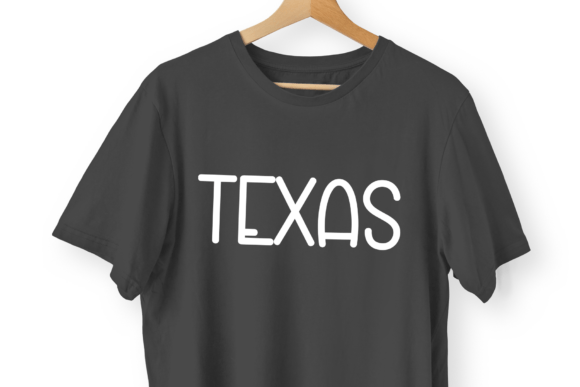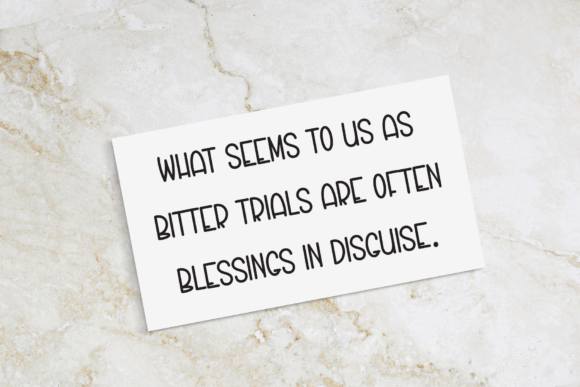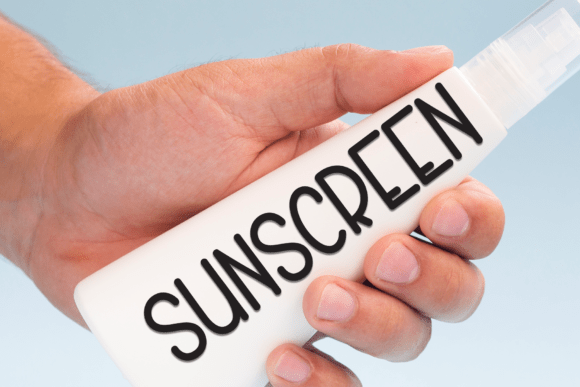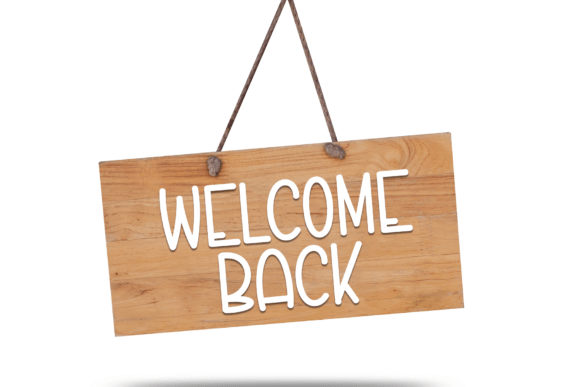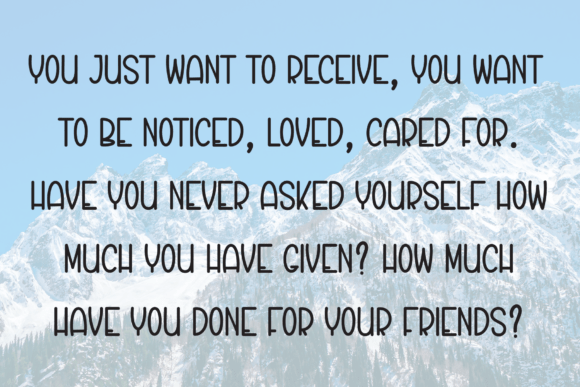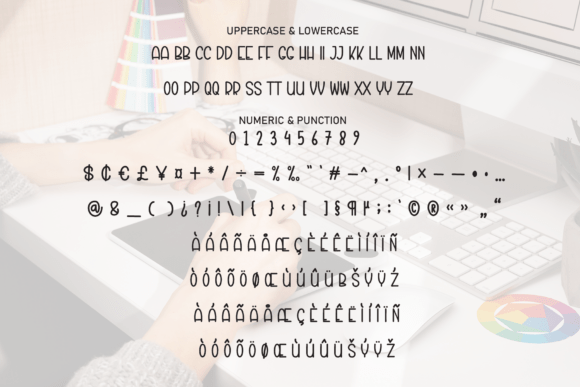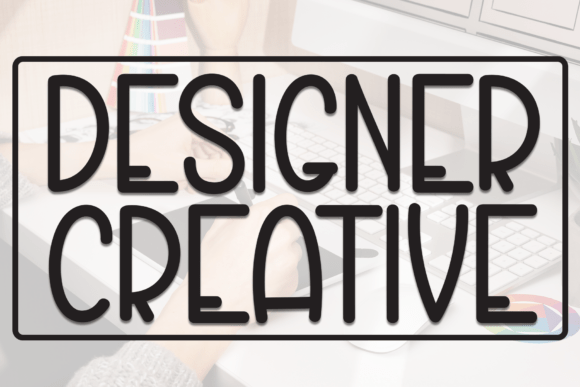
Introducing Designer Creative Font: Elevate Your Designs with Warmth and Clarity
In the world of design, typography plays a crucial role in conveying messages and capturing audiences’ attention. A well-crafted font can make all the difference in transforming a design from ordinary to extraordinary. This is where the Designer Creative Font comes in – a casual and neat display font designed to bring warmth and clarity to your projects.
Clean Structure, Approachable Style
Designer Creative Font boasts a clean structure and approachable style, making it an ideal choice for a wide range of design applications. Whether you’re working on branding, headlines, or everyday designs, this font is sure to impress. Its balanced letterforms offer exceptional readability and charm, ensuring that every message feels genuine and inviting.
Key Features of Designer Creative Font
- Clean and Neat Design: The font’s clean design ensures that your text remains clear and legible, even at smaller sizes.
- Warm and Inviting: The approachable style of Designer Creative Font adds a touch of warmth to your designs, making them feel more welcoming and engaging.
- Balanced Letterforms: The font’s balanced letterforms provide excellent readability and charm, making it perfect for use in headlines, titles, and short paragraphs.
- Versatile: Designer Creative Font is suitable for a wide range of design applications, including branding, packaging, and digital media.
Why Choose Designer Creative Font?
With so many fonts available, why should you choose Designer Creative Font for your next project? Here are just a few reasons:
- Unique Style: Designer Creative Font offers a unique and distinctive style that sets it apart from other fonts.
- Ease of Use: The font is easy to read and works well in a variety of design applications.
- Customizable: Designer Creative Font can be easily customized to fit your brand’s style and tone.
- High-Quality: The font is designed to high-quality standards, ensuring that it looks great in any design.
How to Use Designer Creative Font
Using Designer Creative Font in your designs is easy. Here are a few tips to get you started:
- Headlines and Titles: Use Designer Creative Font to create eye-catching headlines and titles that grab attention.
- Branding and Logo Design: The font is perfect for use in branding and logo design, adding a touch of warmth and approachability to your brand.
- Digital Media: Designer Creative Font works well in digital media, including social media graphics, website headers, and more.
- Print Design: The font is also suitable for use in print design, including brochures, flyers, and posters.
In conclusion, Designer Creative Font is a versatile and stylish font that is perfect for designers and crafters looking to add a touch of warmth and clarity to their projects. With its clean structure, approachable style, and balanced letterforms, this font is sure to become a go-to choice for a wide range of design applications.
Whether you’re working on branding, headlines, or everyday designs, Designer Creative Font is an excellent choice. Its unique style, ease of use, and high-quality design make it an essential tool for any designer or crafter looking to elevate their designs.